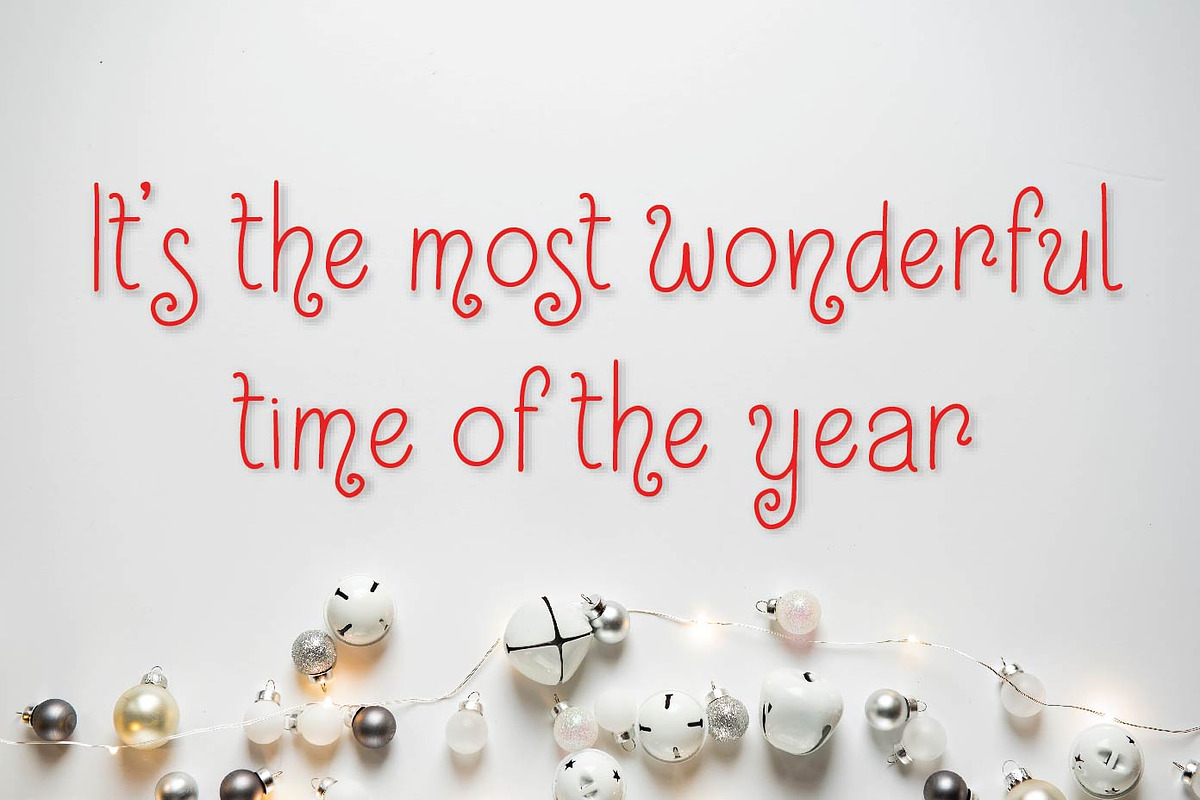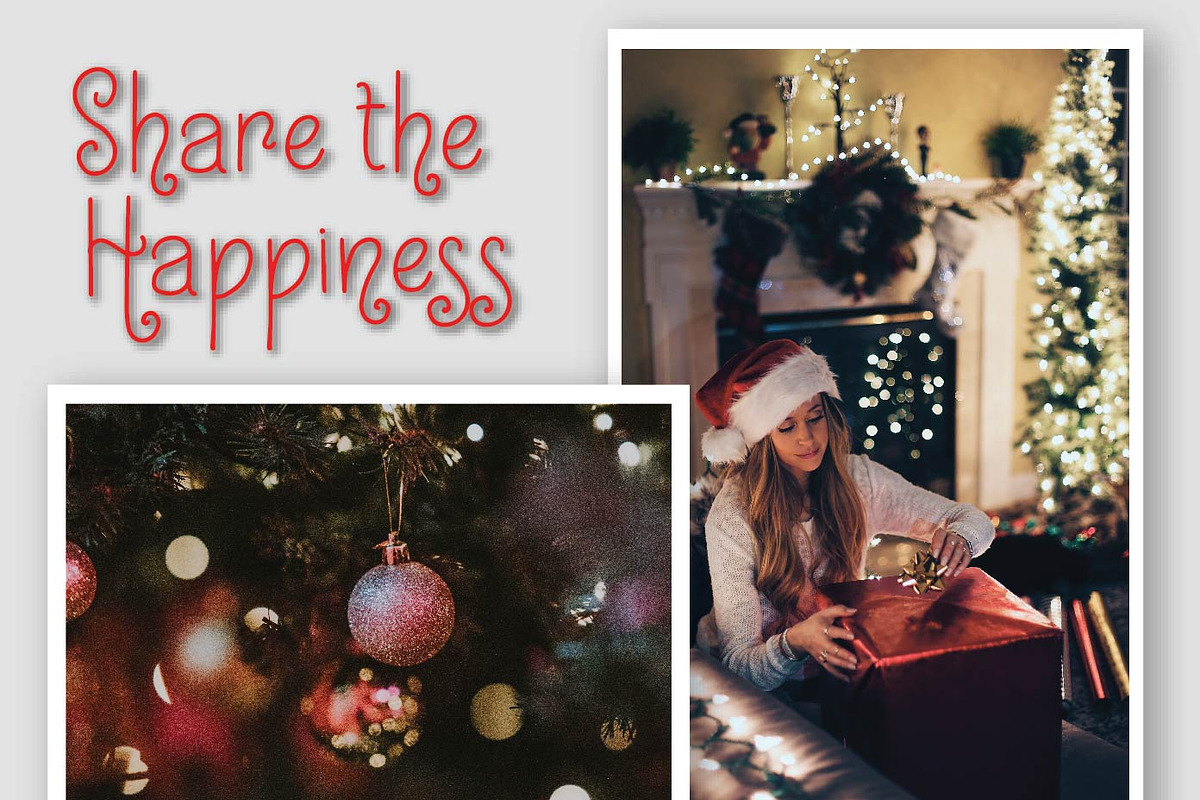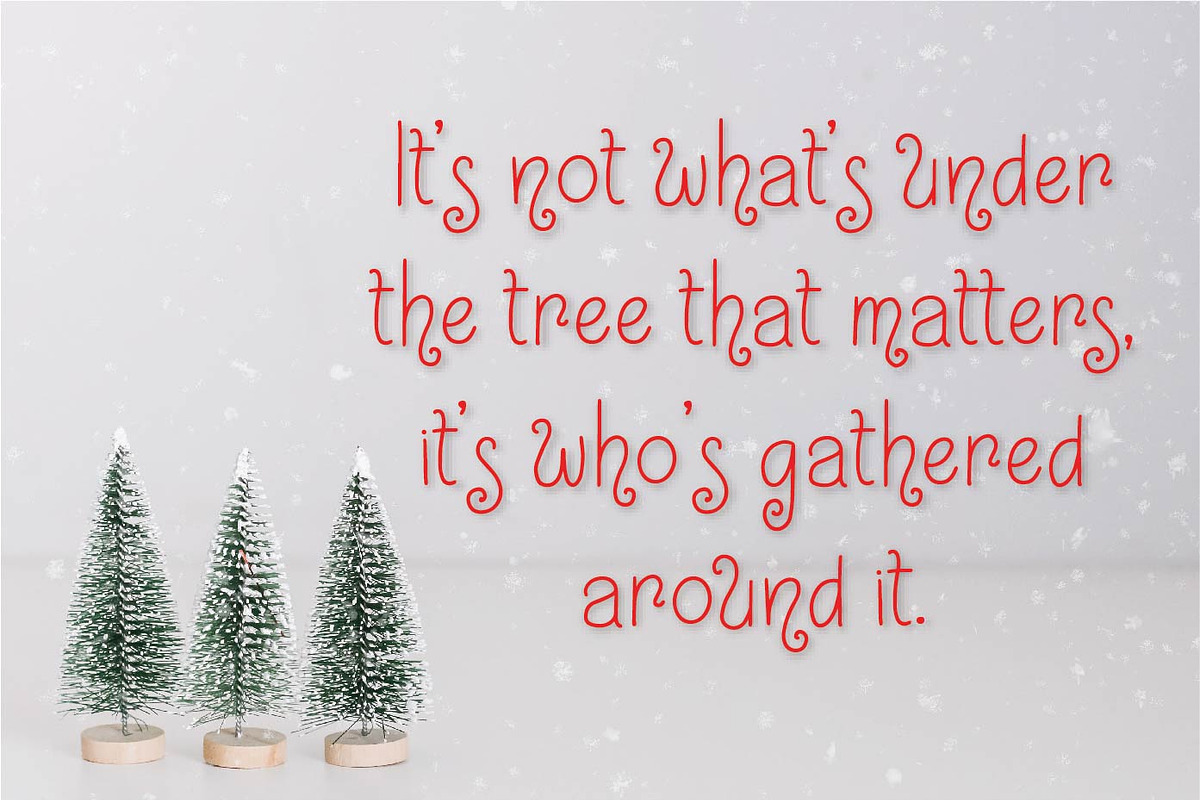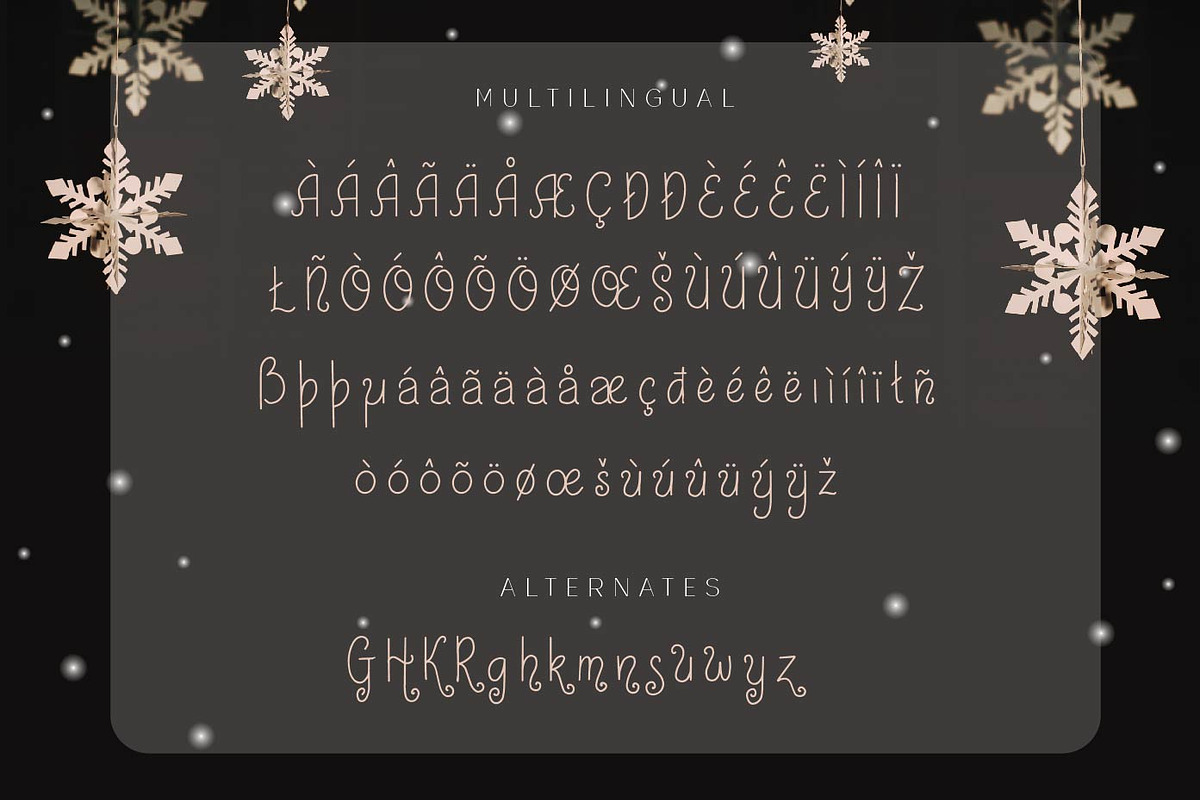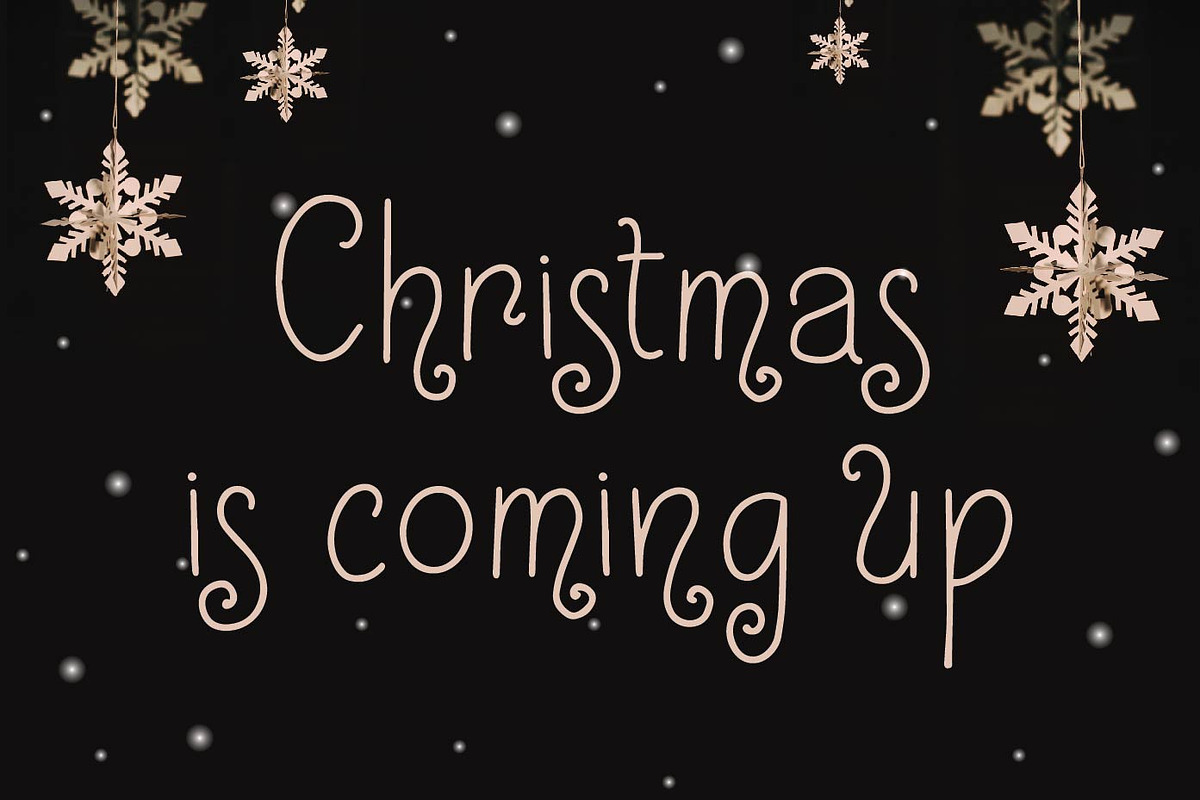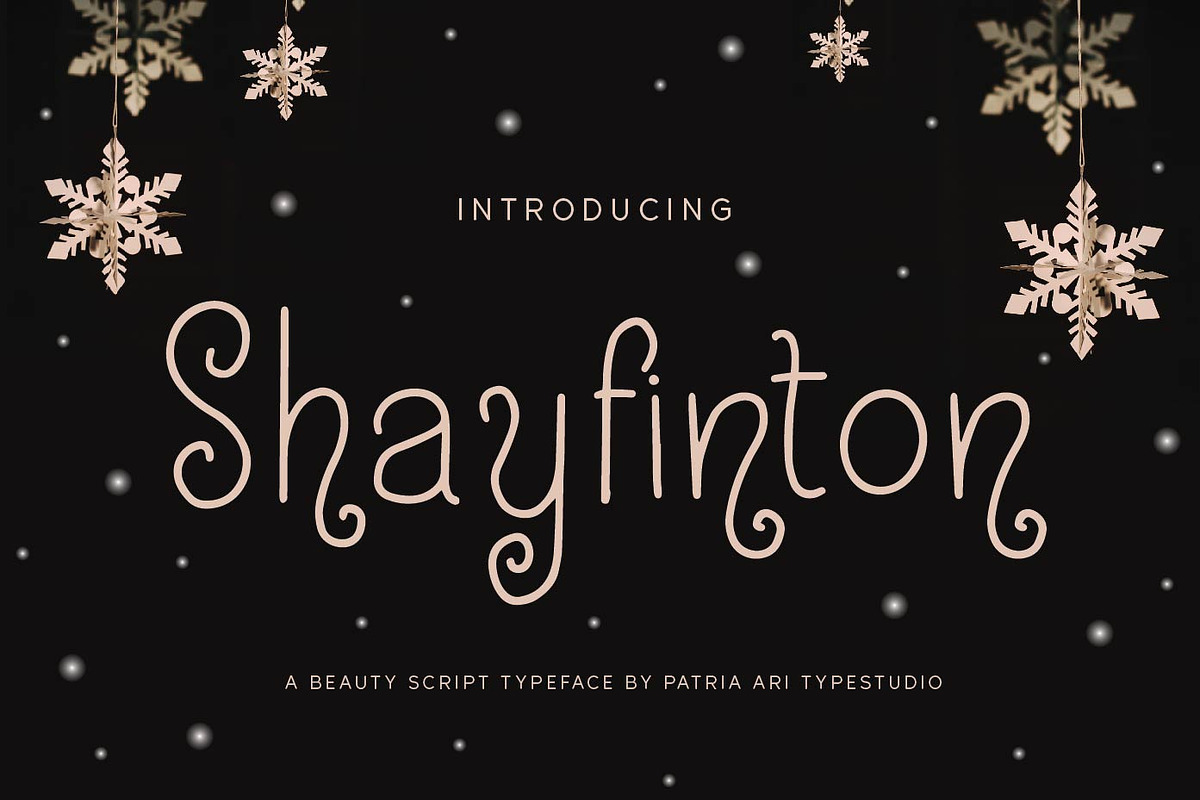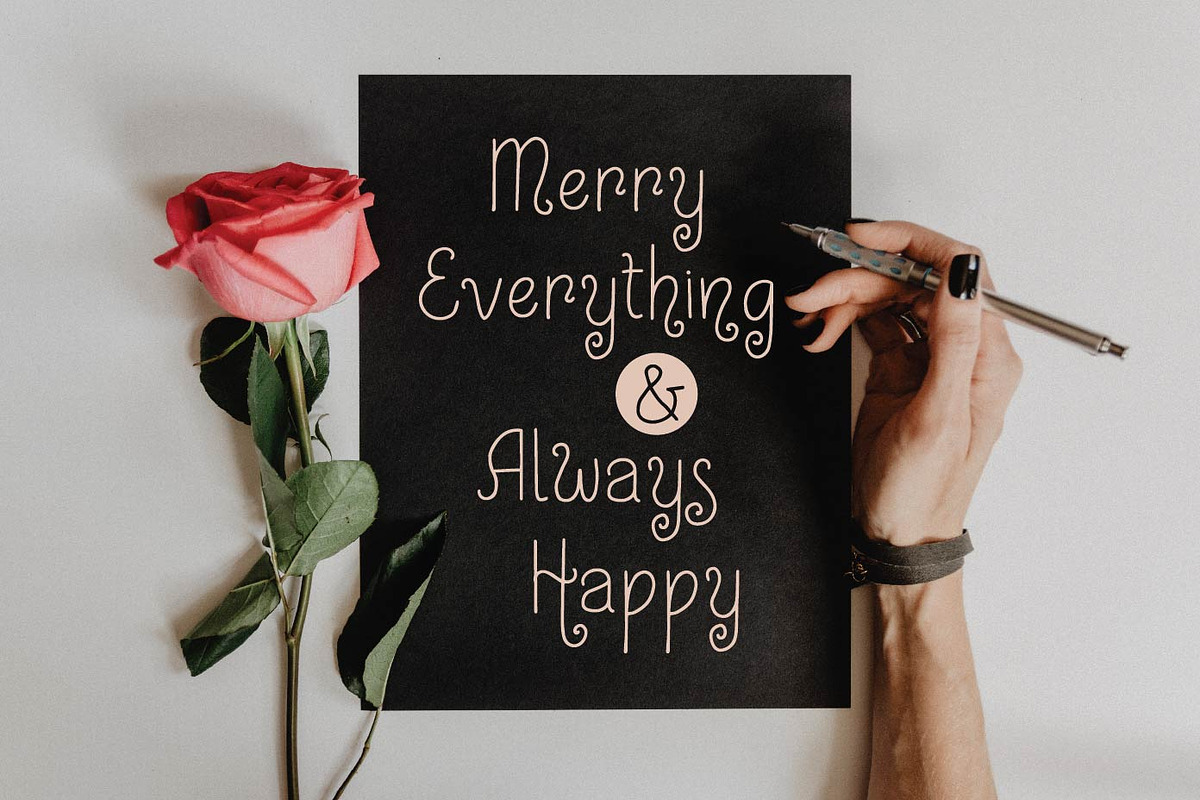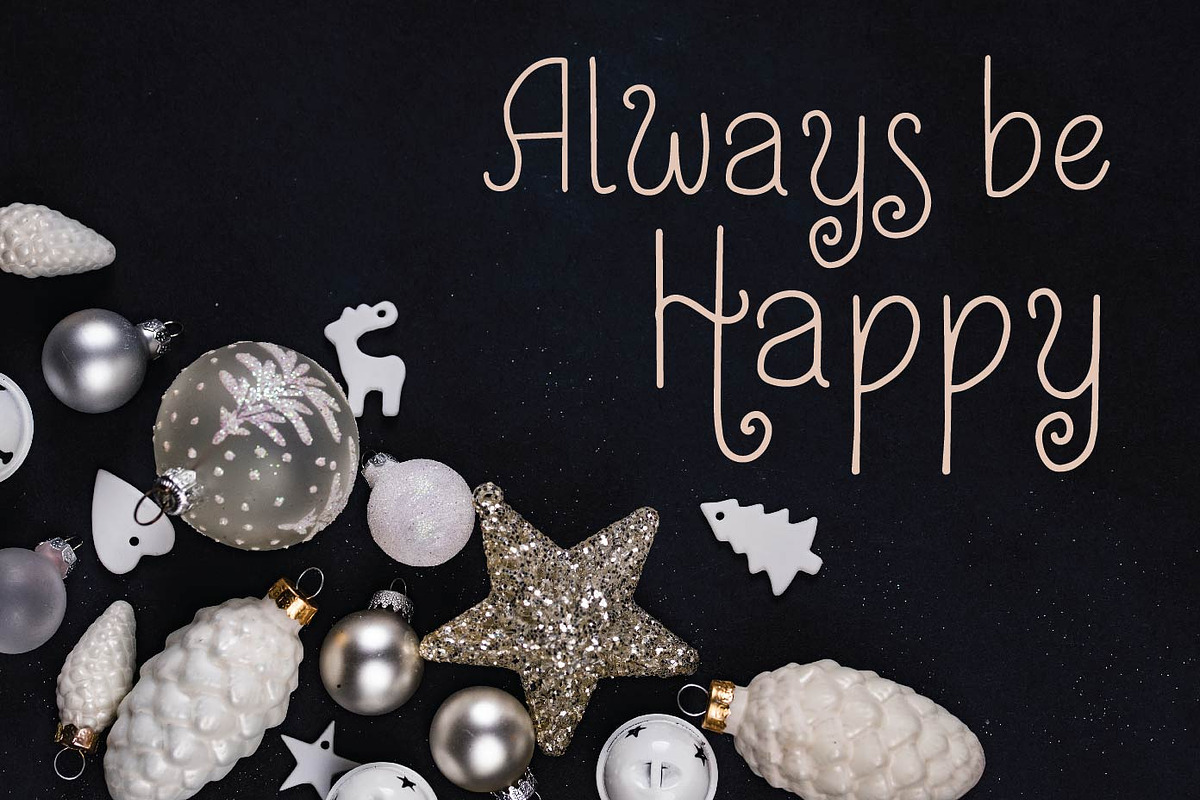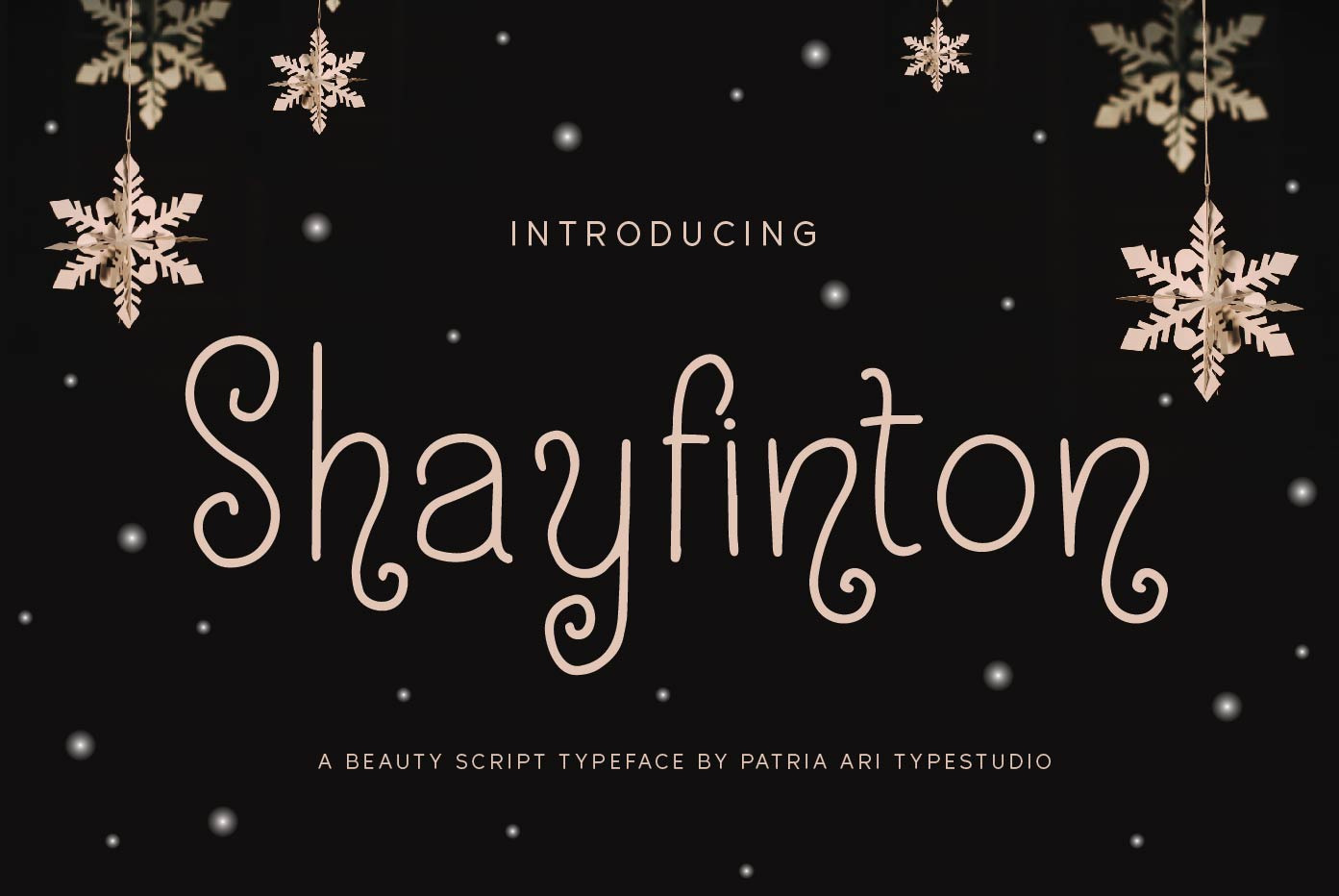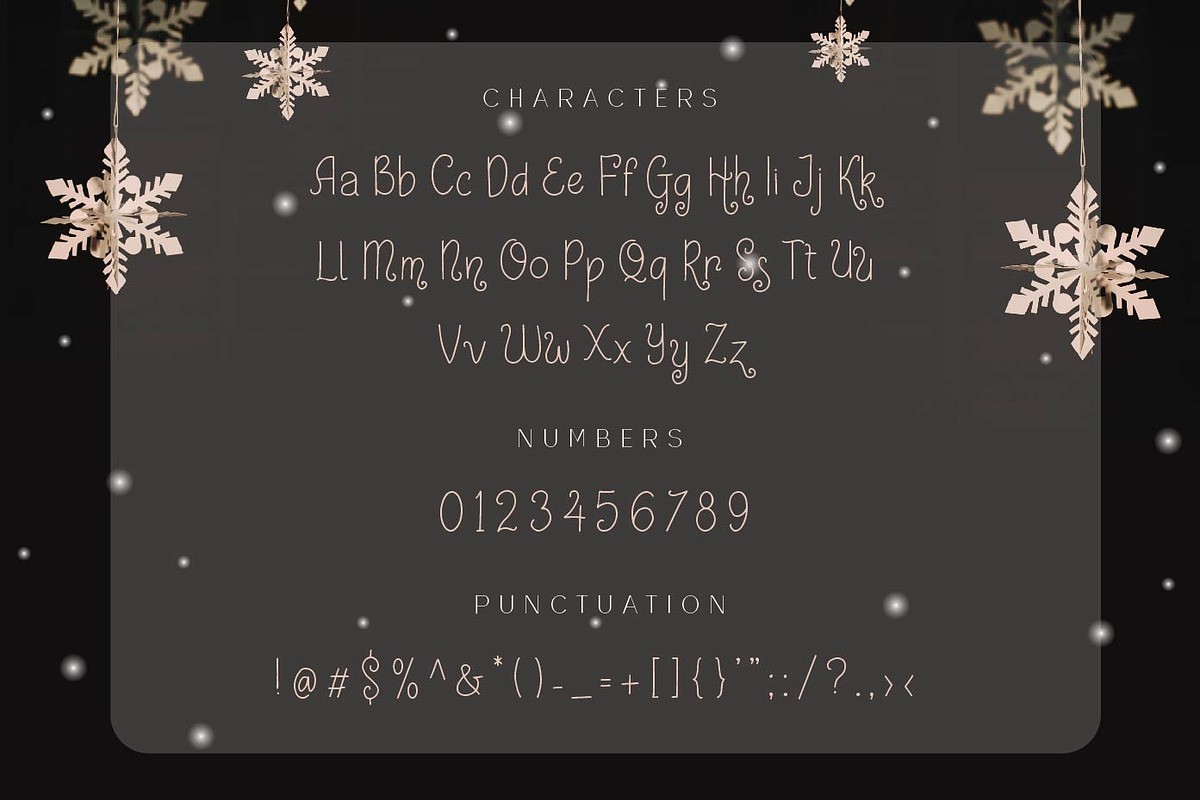
Shayfinton Decorative Monoline Fonts
Inspiring from christmas season, Shayfinton is a cute and playful curly display typeface which is ready to support your projects.
Shayfinton is perfect for branding projects, invitation, greeting cards, book cover, logo, social media posts, advertisements, product packaging, product designs, label, and any projects that you work on.
Fonts featured :
Uppercase Lowercase Numbers Punctuation & symbols Accented characters Alternate glyphs